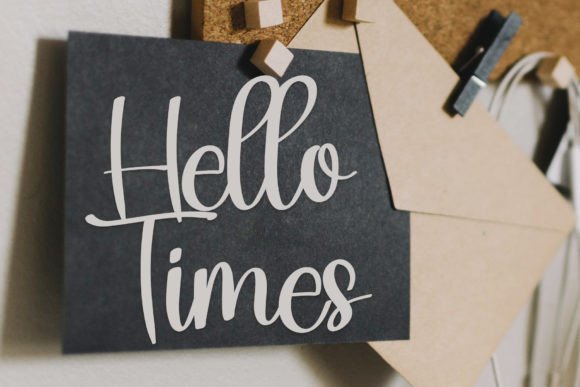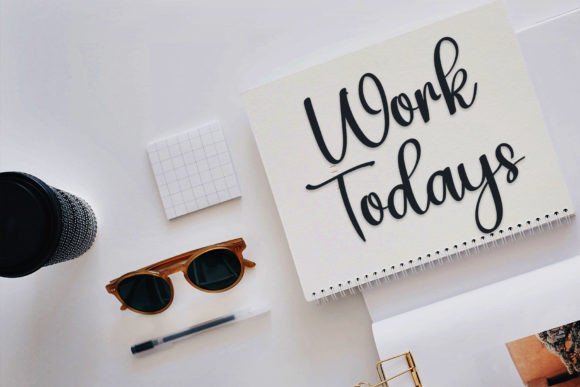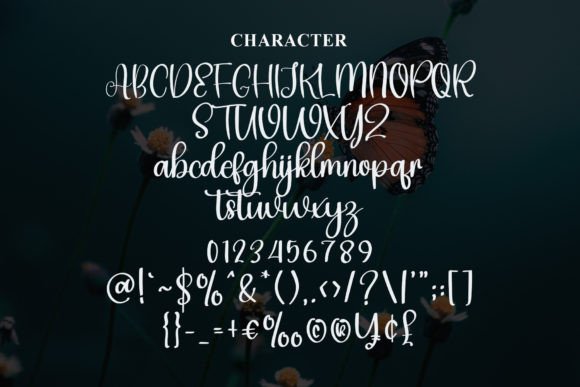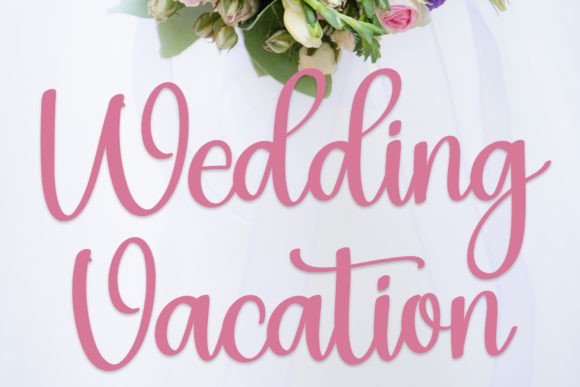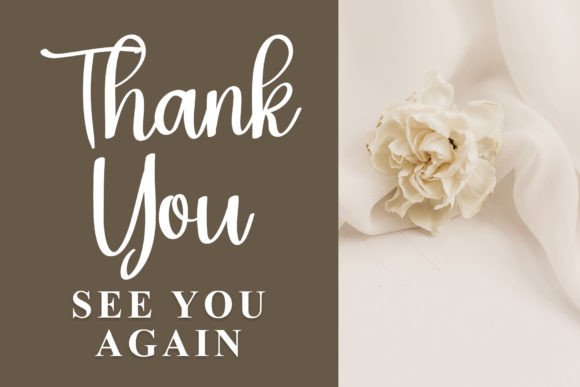
The Butterfly Effect: How a Stylish Handwritten Font Can Transform Your Designs
I’ll never forget the time I was working on a project for a client who wanted a elegant, yet modern look. I had spent hours browsing through font libraries, but nothing seemed quite right. That was until I stumbled upon the Butterfly font. Its stylish, handwritten aesthetic and impeccable form immediately caught my eye. In this article, I’ll share my experience with this beautiful font, its features, and how to make the most of it in your designs.
First Impressions: A Review of Butterfly Font
So, what makes the Butterfly font so special? Here are a few things I love about it:
- ✨ Beautifully crafted glyphs and ligatures: The font is PUA encoded, making it easy to access all the amazing glyphs and ligatures.
- ✅ Balanced and varied: The font has a great balance of thick and thin lines, making it perfect for a variety of design projects.
- 💫 Contemporary atmosphere: The font has a timeless classic calligraphy feel, but with a modern twist.
- 🤔 Limited multilingual support: While the font is great for English and other European languages, it may not be the best choice for projects that require extensive multilingual support.
- ⚠️ Some glyphs may require manual adjustment: Depending on the design, some glyphs may require manual adjustment to get the perfect look.
The Butterfly font was inspired by timeless classic calligraphy, with a modern twist. The designer wanted to create a font that was both elegant and approachable, perfect for a variety of design projects. The result is a beautiful, handwritten font that is sure to enhance the beauty of your projects.
| What is the Butterfly font? | The Butterfly font is a stylish handwritten font with a contemporary atmosphere and impeccable form, inspired by timeless classic calligraphy. |
| Is the Butterfly font PUA encoded? | Yes, the Butterfly font is PUA encoded, making it easy to access all the amazing glyphs and ligatures. |
| Is the Butterfly font suitable for multilingual projects? | While the Butterfly font is great for English and other European languages, it may not be the best choice for projects that require extensive multilingual support. |